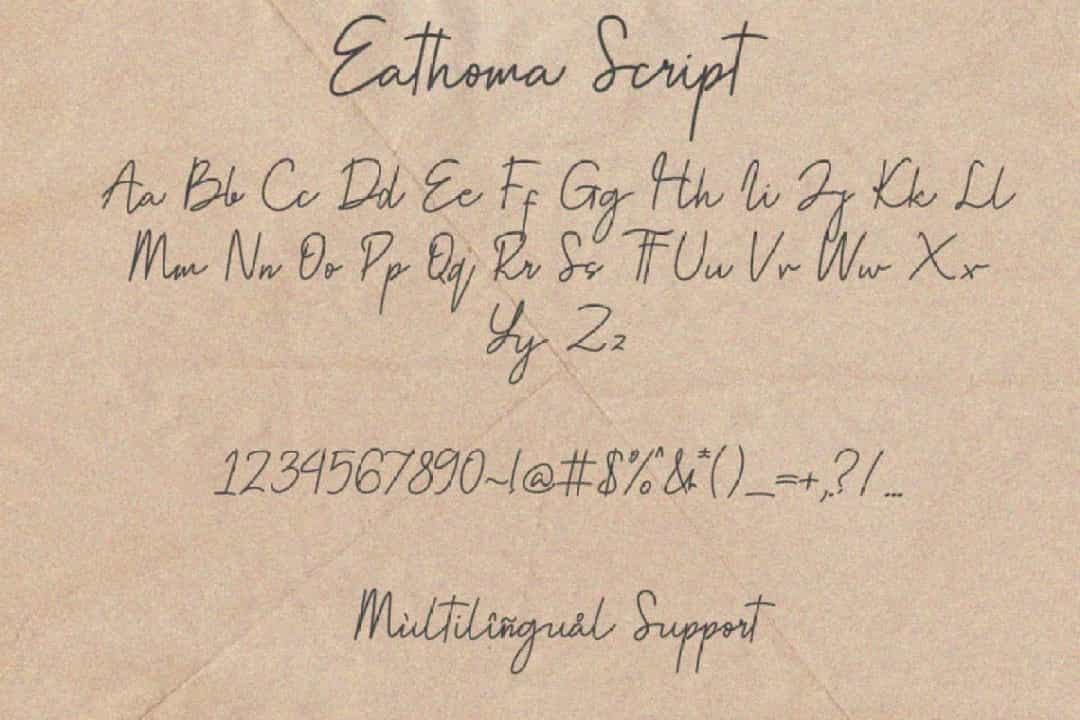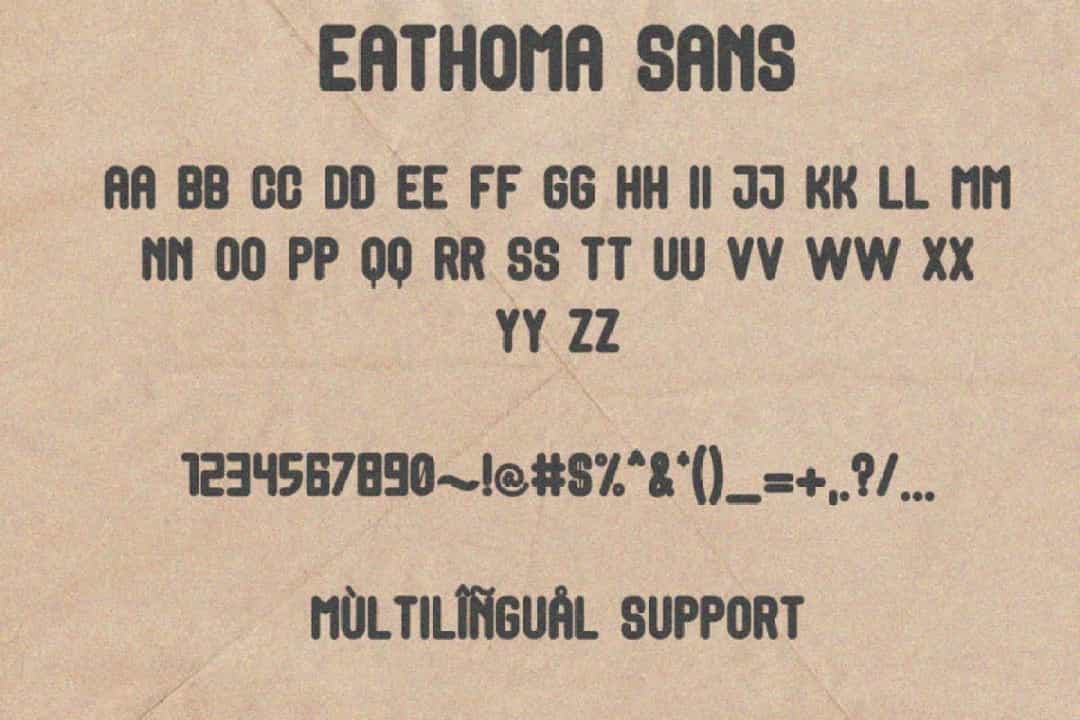
Eathoma Font Duo
Discover Eathoma Font Duo, part of the   Sans Serif  Handwritten Script Monoline Basic Personal collection—a versatile and unique font perfect for adding a personal touch to your projects. Download it for free and enjoy crafting designs with style, from invitations to social media posts. This font is available exclusively for personal use, giving you the freedom to create without limits. Unlock your creativity with Eathoma Font Duo today!
Eathoma font duo consist of an attractive combination of san serif and script letters with a modern and casual style that makes this font great for logos, branding designs and greeting cards, products & crafts and many other designs.